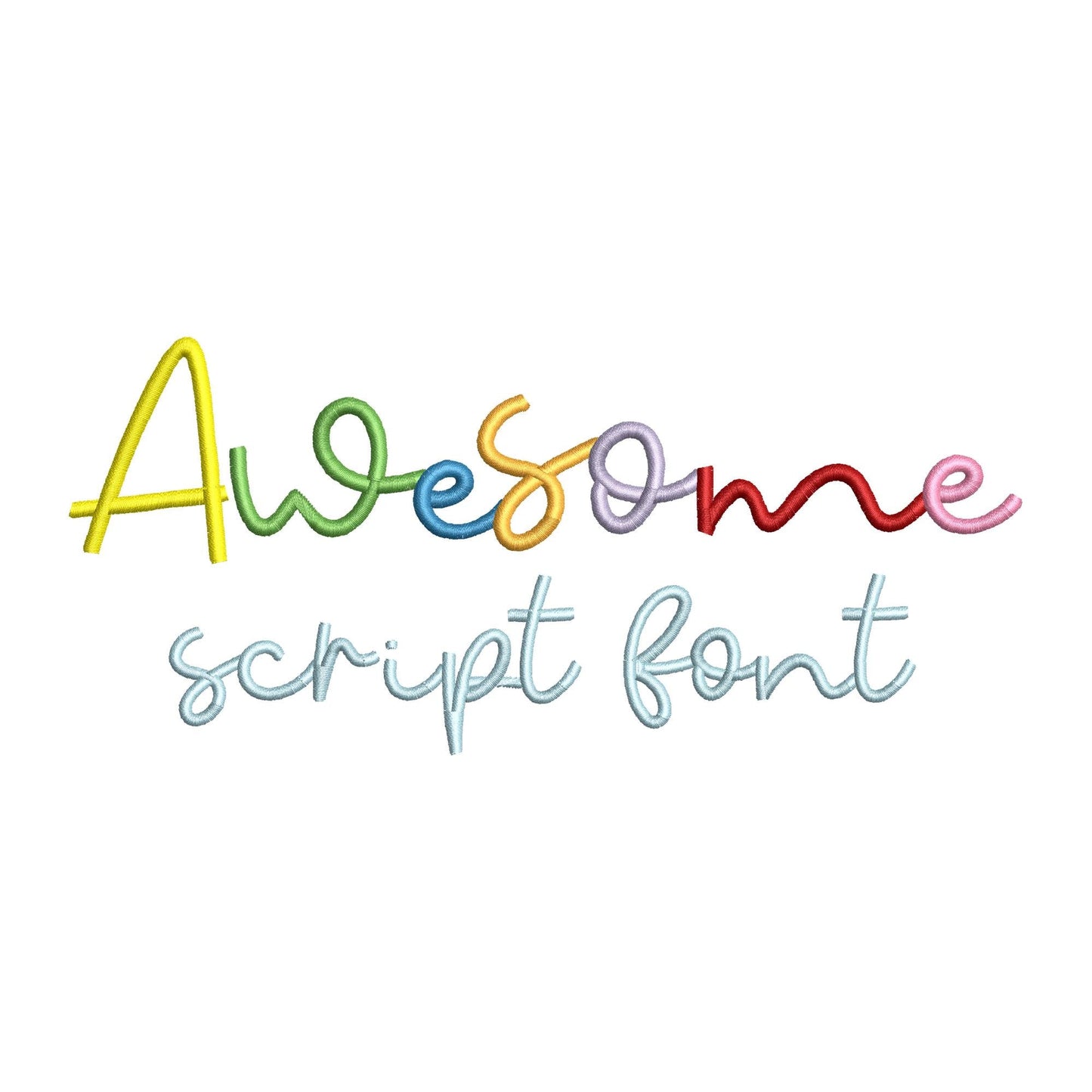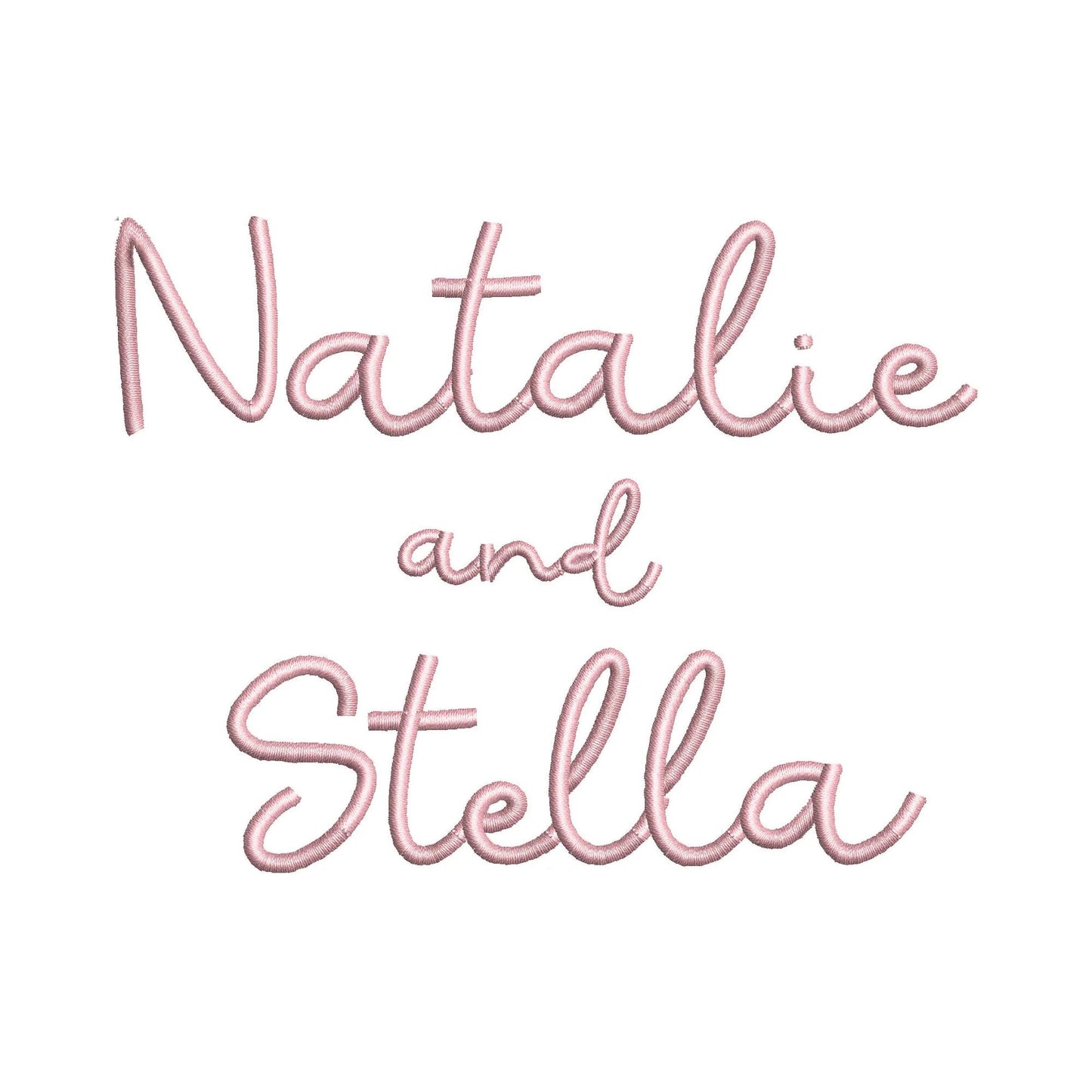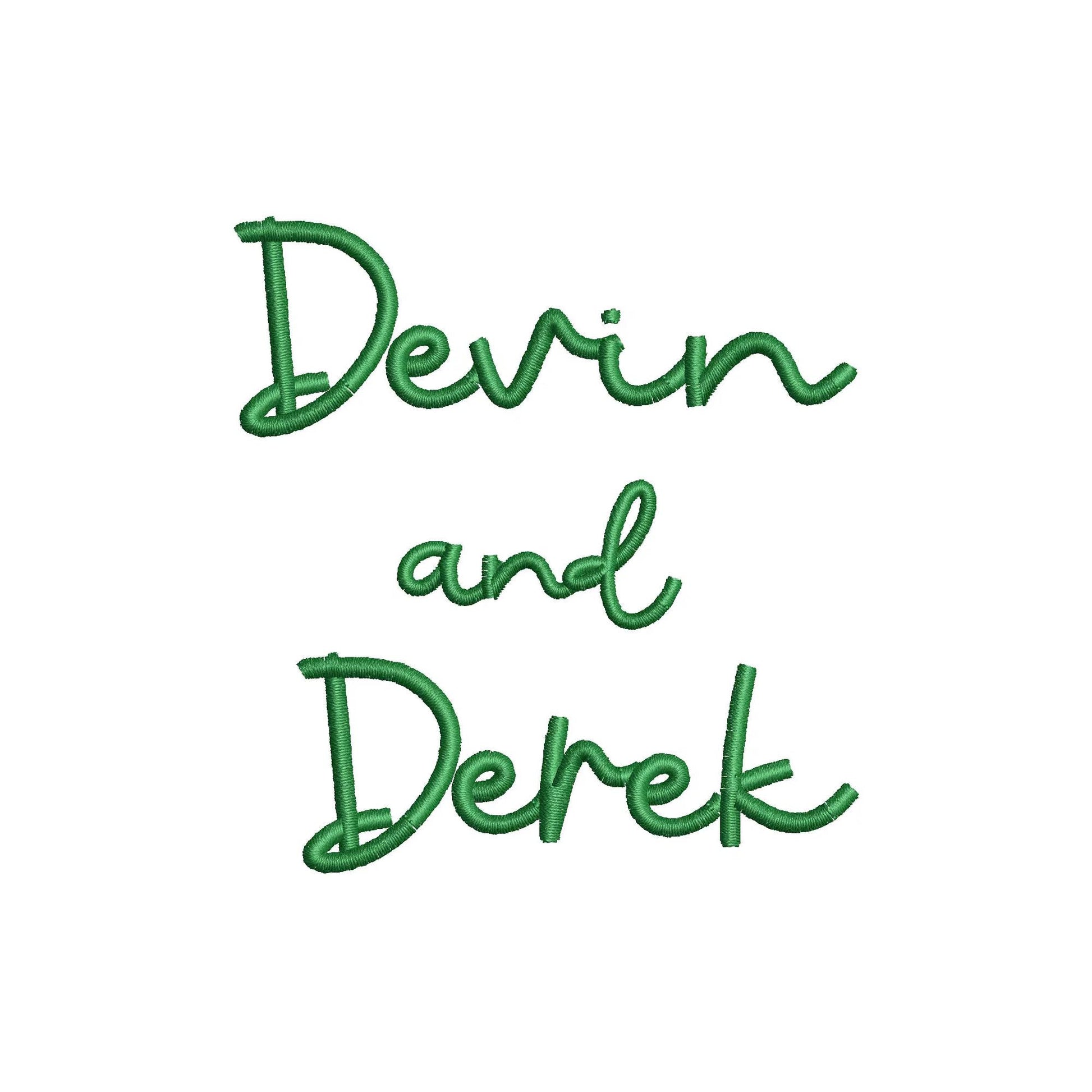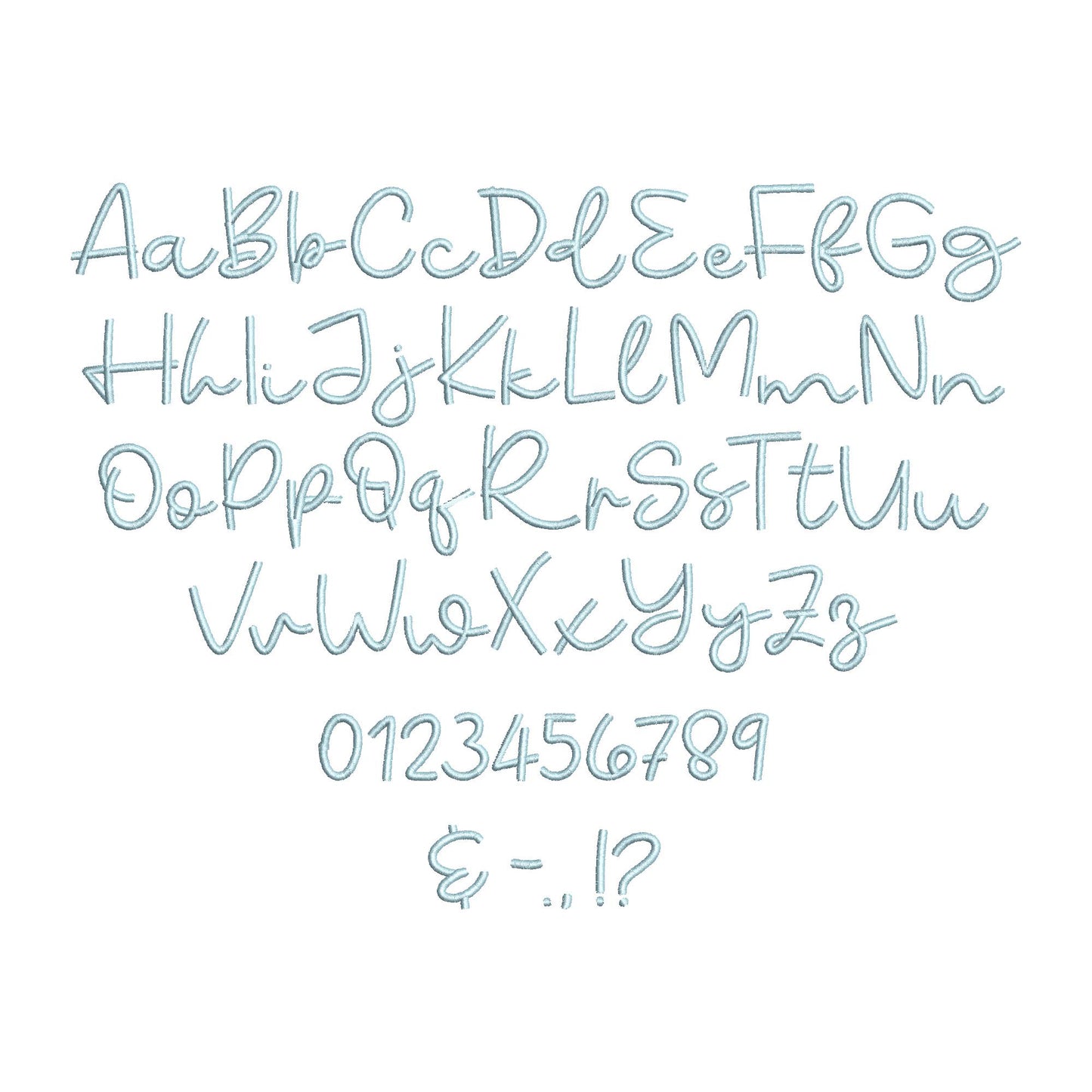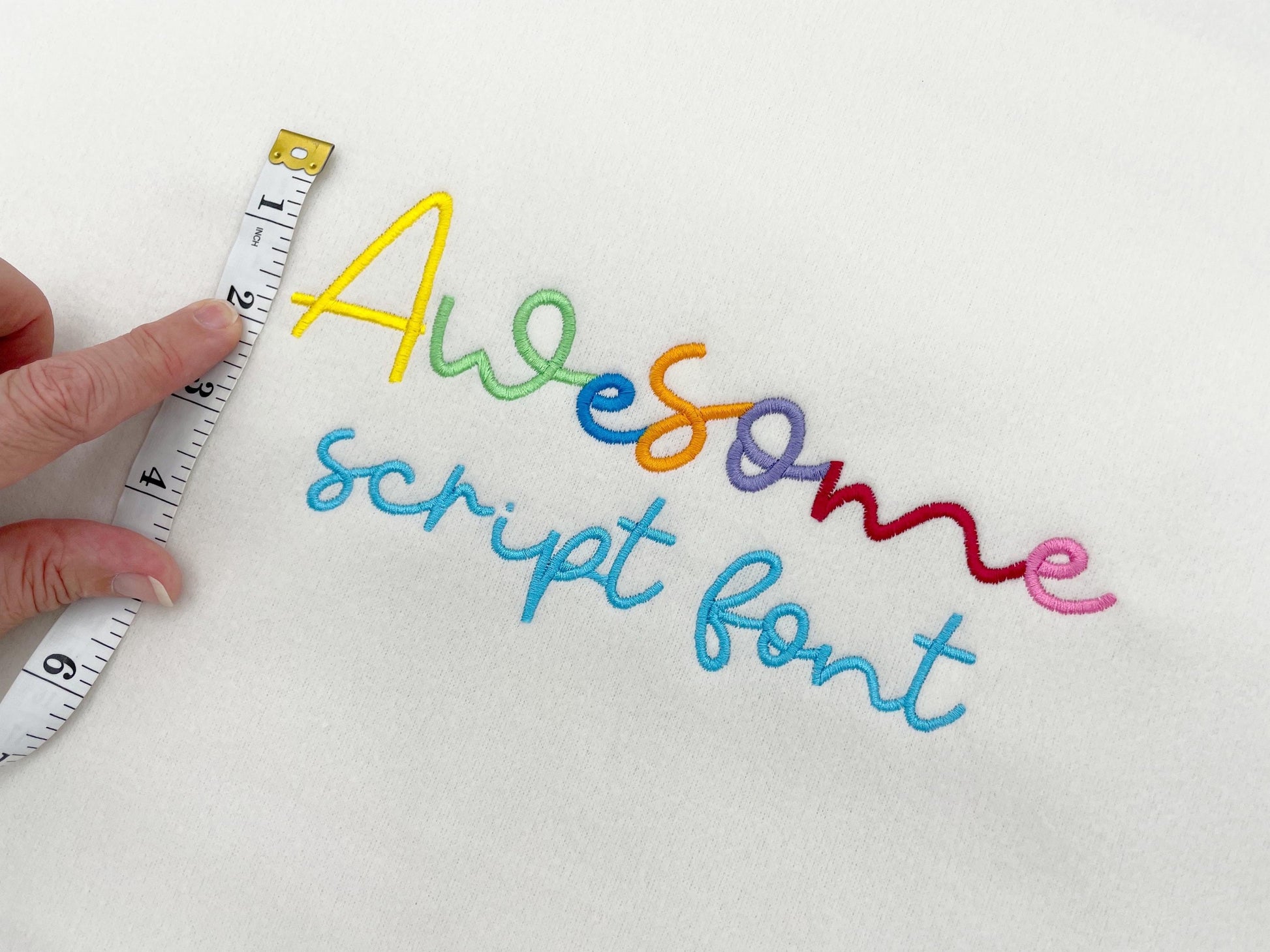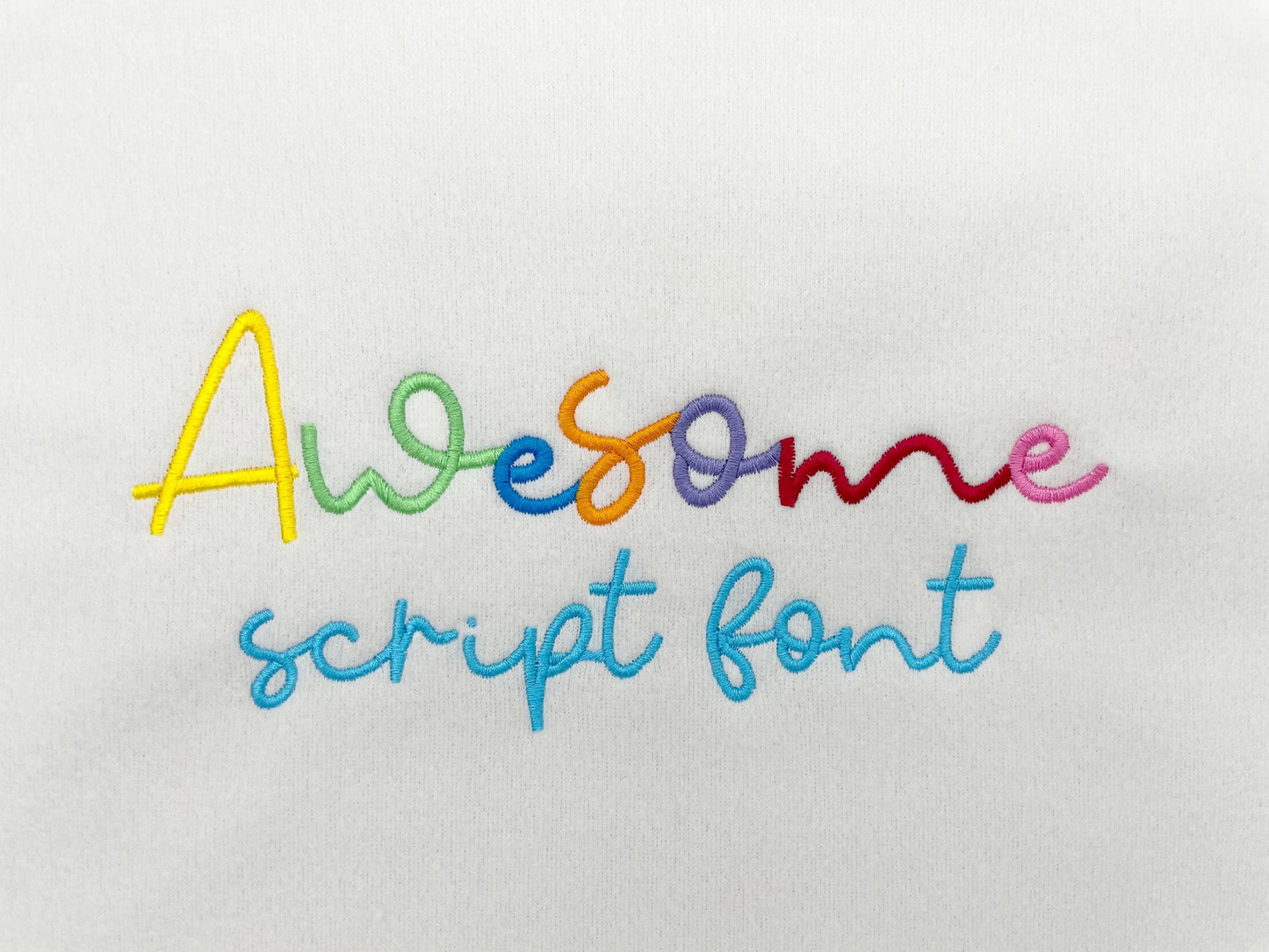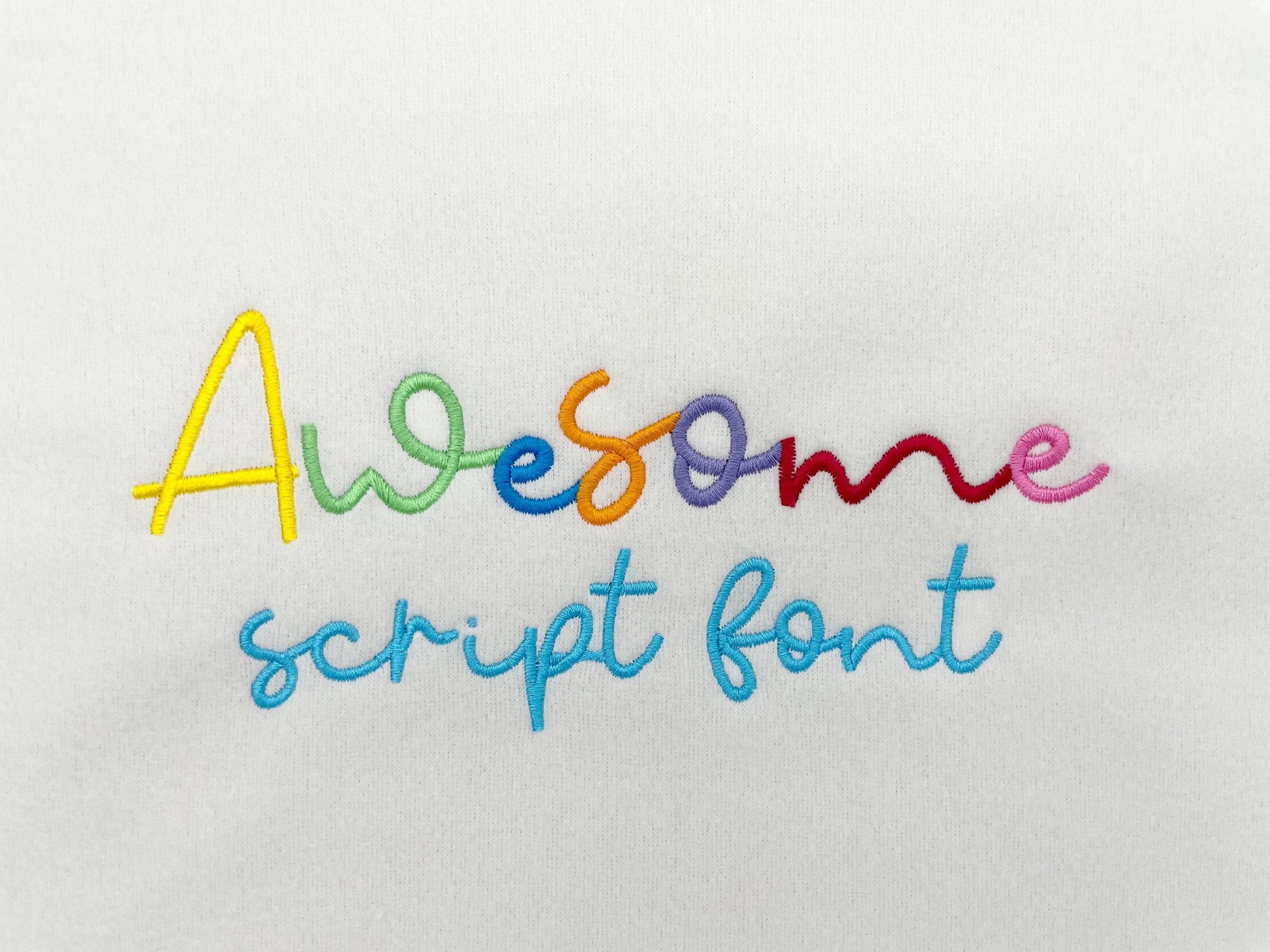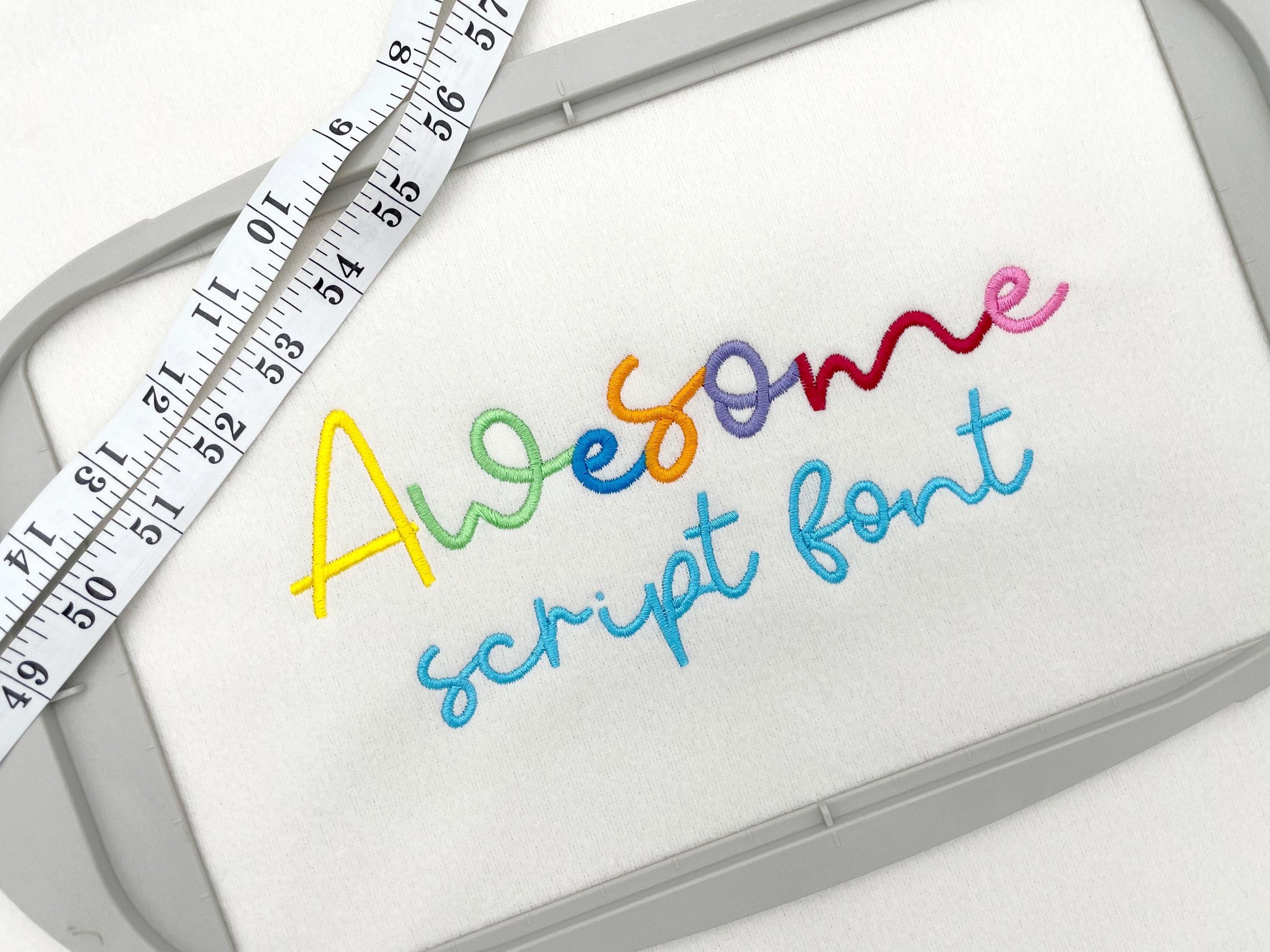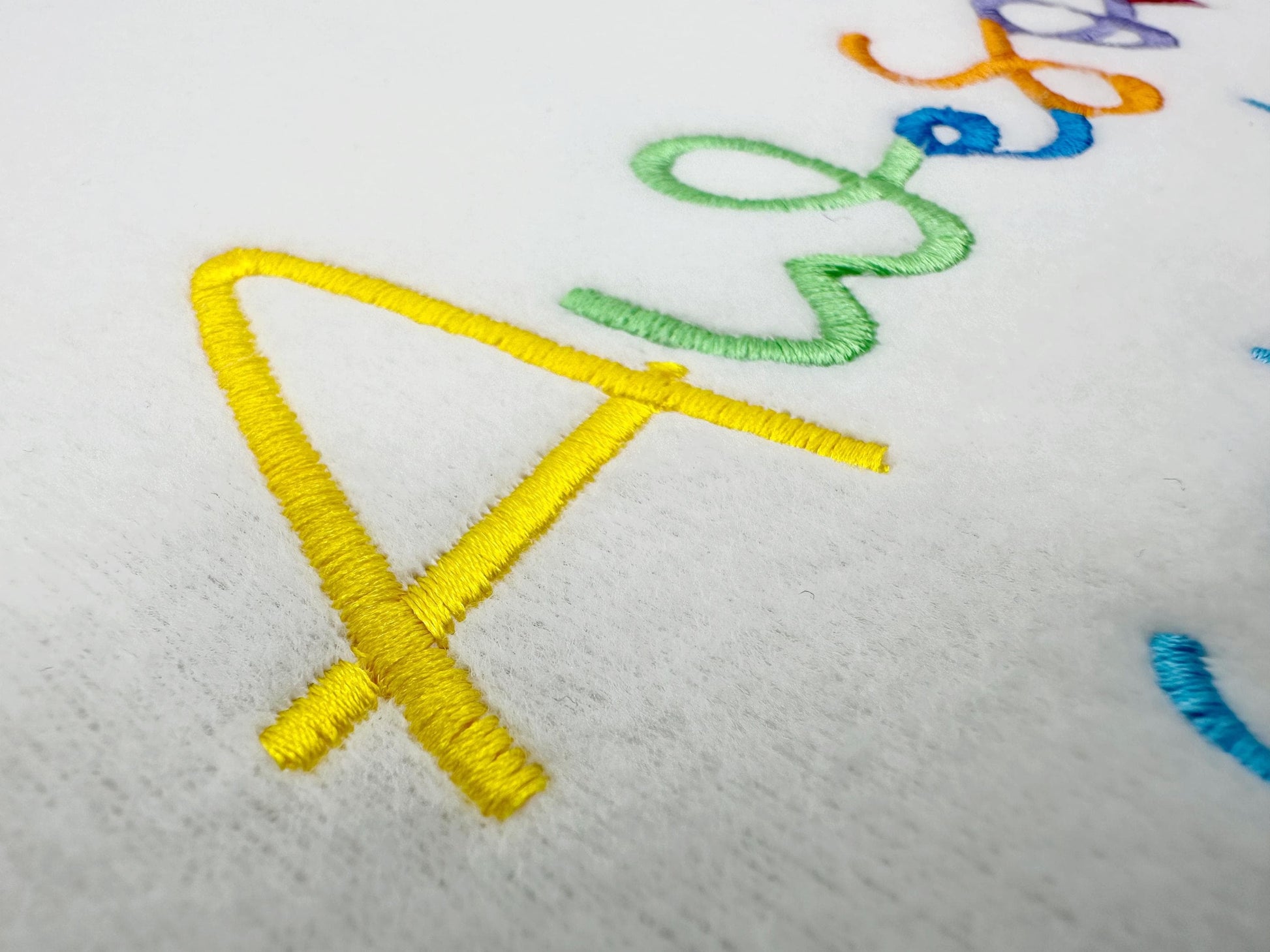
Awesome Script Handwritten Font
Or click to open the linkA modern handwritten script in satin stitch. Lovely for wedding gifts, names, monograms and sweatshirts.
The letters come in eight sizes: 0.7, 1, 1.2, 1.5, 2, 2.5, 3 and 3.7 inches. Smooth satin stitch script letters. Includes uppercase and lowercase letters, numbers 0 to 9 and punctuation.
- Modern satin stitch script font
- 8 sizes, 0.7 to 3.7 in